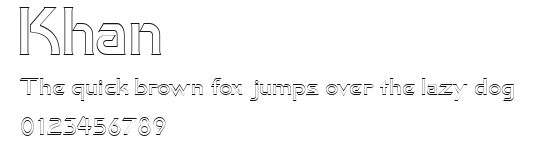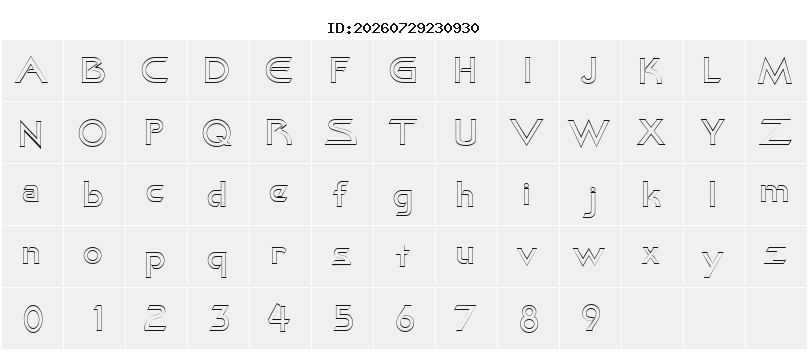
• Font Name: Khan
• Font Style: Outline
• Full Font Name: Khan Outline
About Khan.ttf
Khan.ttf is a modern, elegant sans-serif font designed for ultimate readability and visual harmony. Perfect for branding, headlines, web design, and print materials.